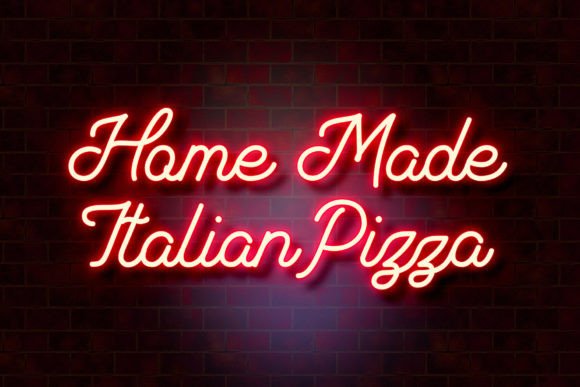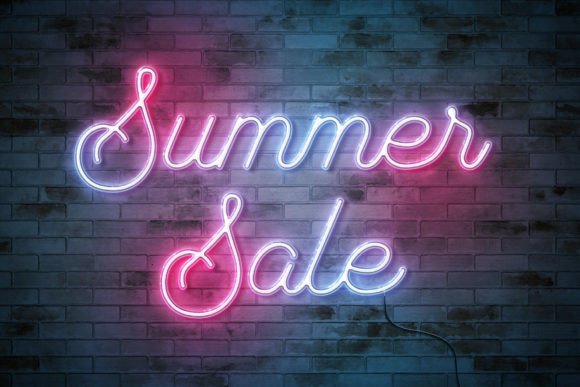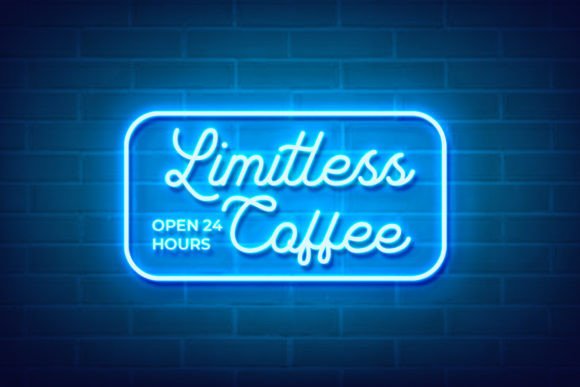
Midnight Runners Font: A Cool Neon Script for Social Media Design
About the Midnight Runners Font
Meet Midnight Runners Font, a stunning font that brings a touch of elegance and professionalism to any design. Midnight Runners is a monoline neon script that is very suitable and recommended for your design project or branding using a neon text effect, it’s cool and awesome. This font is PUA encoded which means you can access all of the amazing glyphs and ligatures with ease!
Midnight Runners excels in headline treatments, short impactful phrases, and logo design where its bold, energetic personality shines. It’s ideal for projects with a retro-futuristic, vibrant aesthetic, such as posters for concerts or nightclubs, branding for streetwear apparel, or packaging for energy drinks. Avoid using it for body copy or lengthy text; its monoline structure lacks the necessary weight and x-height for comfortable reading in larger blocks of text.
Pairing it with a clean sans-serif like Futura or a geometric sans-serif like Bebas Neue provides a strong contrast and maintains visual interest. For a softer approach, consider a rounded sans-serif such as Open Sans to balance its strong lines. Avoid pairing it with other highly stylized or decorative fonts, which would create visual clutter.
Midnight Runners’ core personality is bold and rebellious. Its neon-inspired design conveys a sense of dynamism and modernity, making it unsuitable for projects that require a more refined or classic feel.
Midnight Runners Font Usage Examples
Midnight Runners Font Example